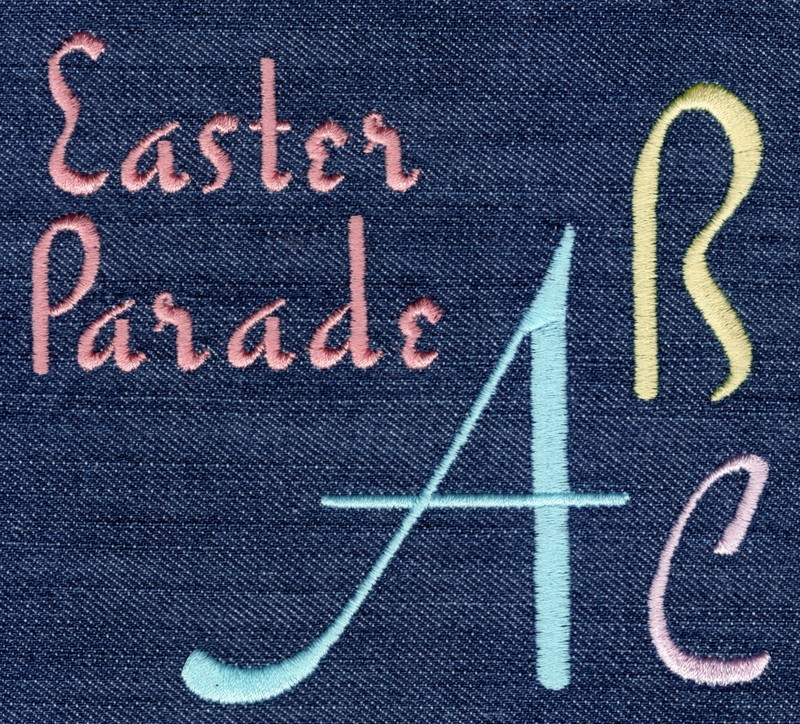
426 Easter Parade Satin Font
Easter Parade Satin Font comes in 1", 1.5", 2", 2.5" and 3" heights based on the capital "A". All sizes are finished in standard satin stitching and include uppercase letters, lowercase letters, numbers and four punctuation marks.